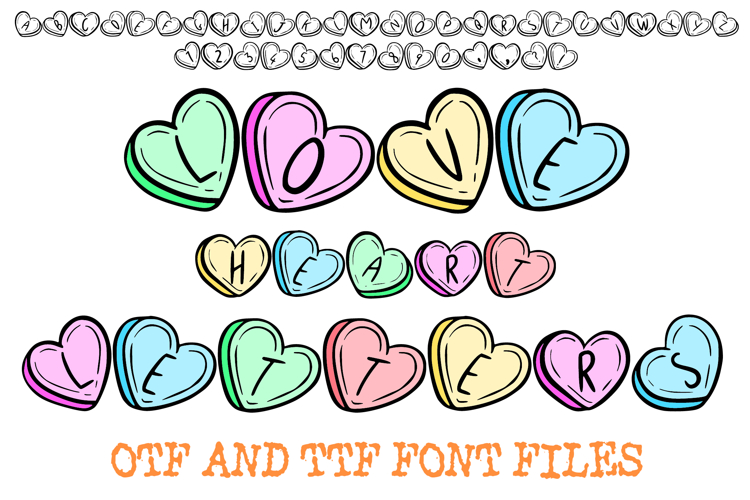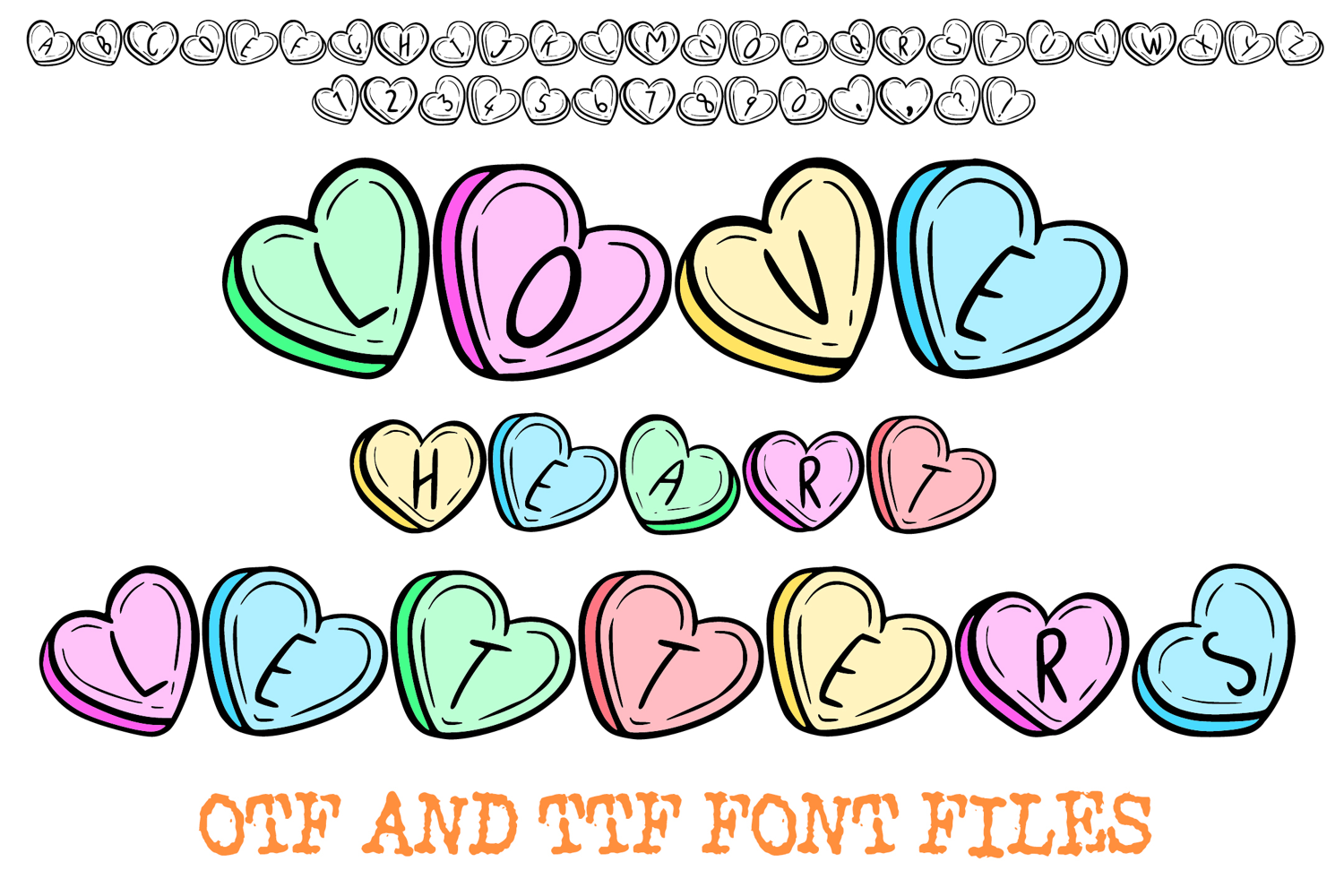
Love Heart Letters Font Retro Candy Valentines Typeface
Sweeten your creative projects with the Love Heart Letters Font! This charming display typeface captures the whimsical essence of classic Valentine’s Day candy hearts. Every uppercase letter and number is individually contained within a colorful, glossy heart featuring thick black outlines and soft highlights for a professional, high-impact look.
The font utilizes a beautiful pastel palette—including mint green, baby pink, soft yellow, and light blue—to create a cheerful and inviting aesthetic. Whether you are designing festive greeting cards, playful social media graphics, or personalized holiday merchandise, this font provides an instant "cool" factor that resonates with both retro and modern styles.
Why Designers Love This Font:
Candy Heart Aesthetic: Each character is pre-rendered inside a decorative heart, saving you hours of manual layout work.
Glossy 3D Effect: Letters feature white highlights that give them a polished, "candy" or "sticker" feel.
Valentine’s Day Stationery: Create adorable "Save the Date" cards, festive invitations, and personalized gift tags.
Apparel & Merchandise: Perfect for "Love" themed T-shirts, tote bags, and seasonal sticker packs.
Social Media Branding: Add a playful headline to your Instagram posts, blog banners, or boutique logos.
Teacher & Classroom Decor: Ideal for creating fun holiday worksheets, student name tags, and festive bulletin boards.